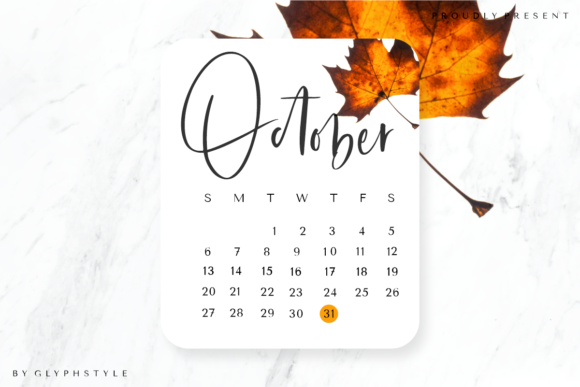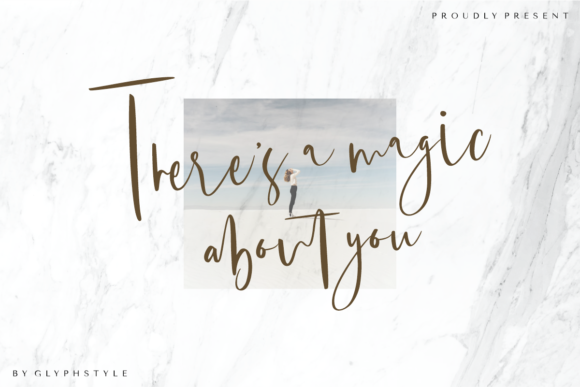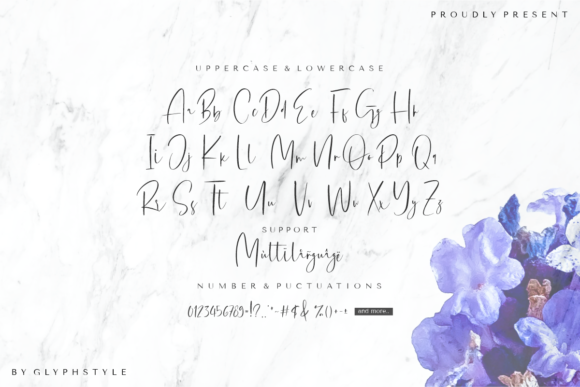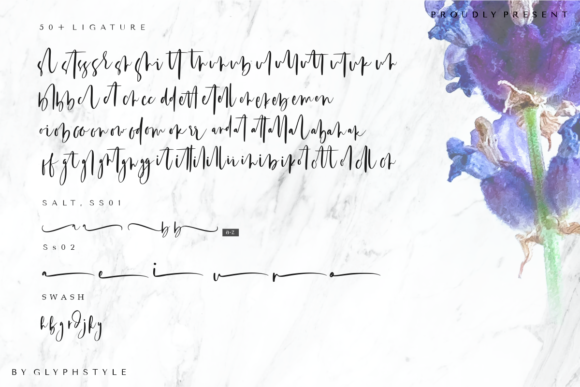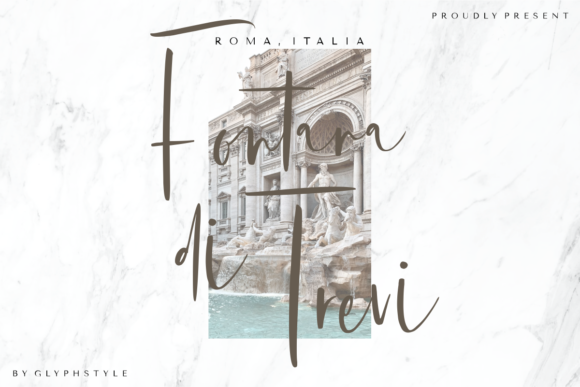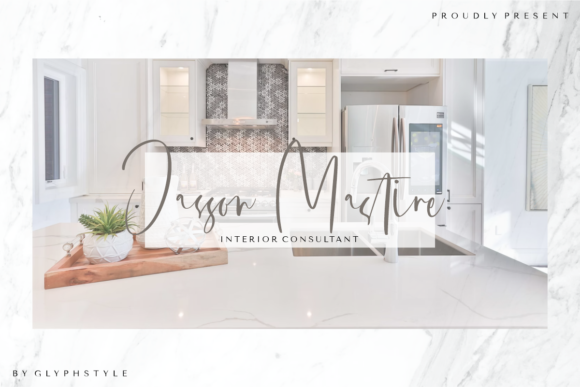
Introduction to Oishigo Font
Have you ever been stuck on a creative project, desperately searching for the perfect font to bring your vision to life? That’s exactly what happened to me when I was designing a wedding invitation – I wanted something unique, yet elegant, to capture the essence of the special day. After hours of scrolling through design resources, I stumbled upon the Oishigo Font, and my search was over. Its freeform handwritten style and high-quality design made it the perfect addition to my project.
What makes Oishigo Font truly special is its ability to add a touch of personality to any design. With its PUA encoded glyphs and swashes, you can easily access the intricate details that set it apart from other fonts. Whether you’re working on a branding project, creating social media posts, or designing advertisements, Oishigo Font is an excellent choice for designers who want to make a lasting impression.
Key Features of Oishigo Font
- Designed to provide a unique and eye-catching touch to designs
Honest Review: Oishigo Font
I recently came across the Oishigo Font while searching for a unique design resource for a creative project. As a designer, I’m always on the lookout for high-quality fonts that can help elevate my work.
Here are some things that work well for the Oishigo Font: ✨
- Unique and playful design style that adds a touch of whimsy to any project
- Not suitable for formal or professional projects, due to its playful design style
Overall, I’m impressed with the Oishigo Font. It’s a great addition to any designer’s toolkit, and I can see it being used in a variety of creative projects. With its unique design style and high-quality font files, it’s definitely worth checking out.
For a high-quality design, use the Oishigo Font on a transparent background to create a clean and modern look. You can also experiment with different font sizes and colors to add visual interest to your design.
The Oishigo Font is ideal for use in creative projects such as graphic design, digital art, and typography. Its high-quality design and versatility make it a great resource for designers and artists looking for a unique and eye-catching font.